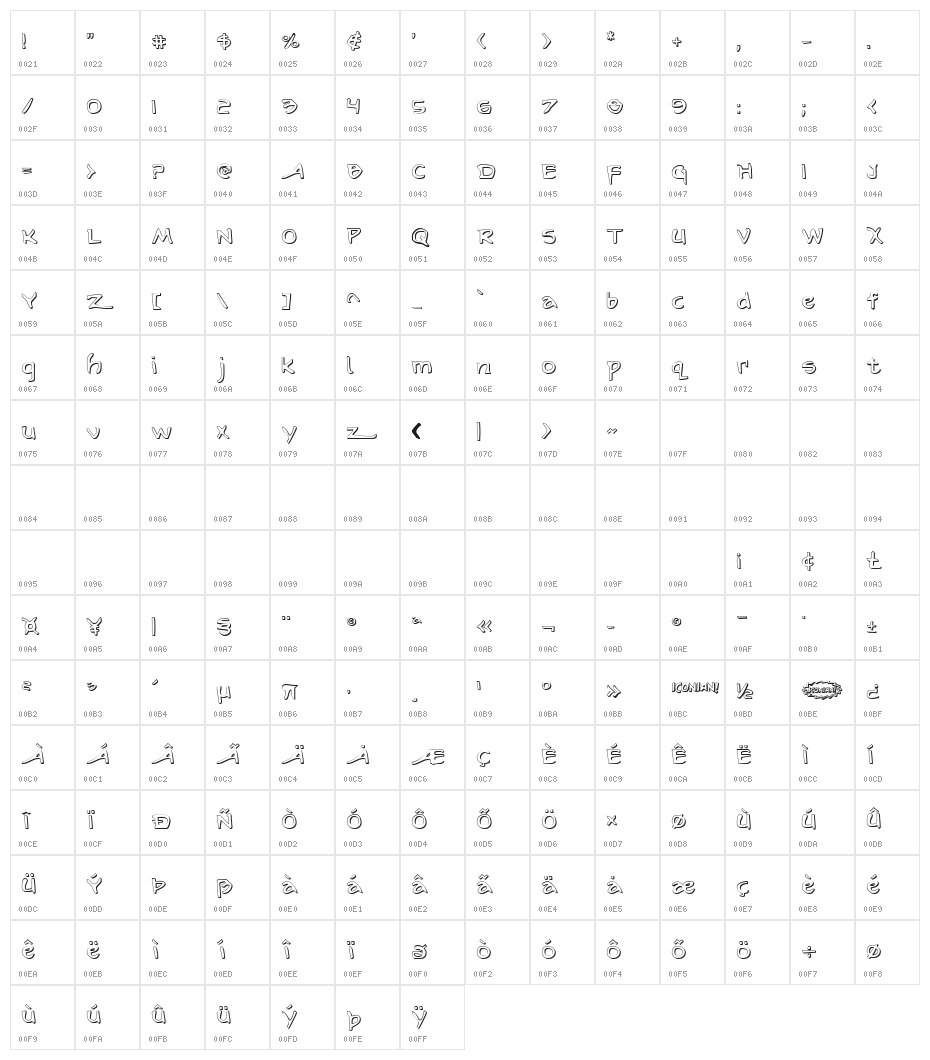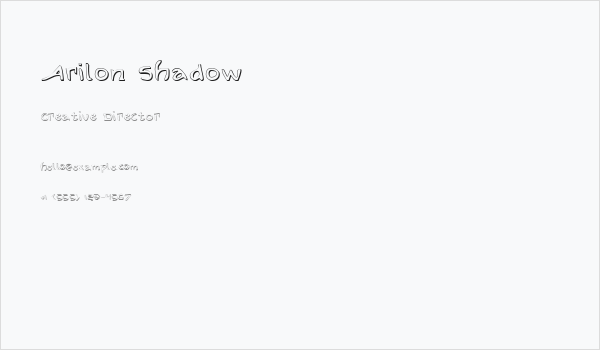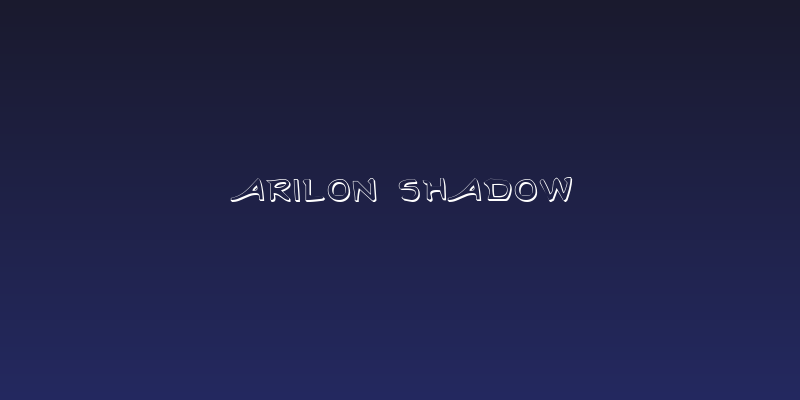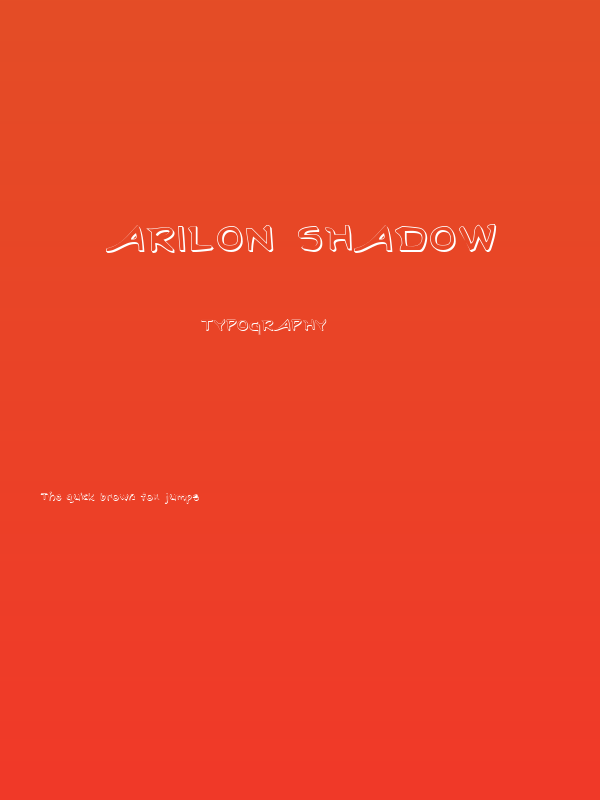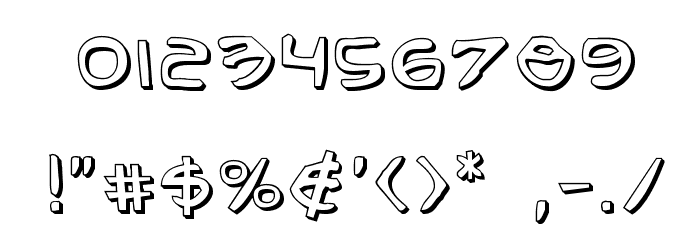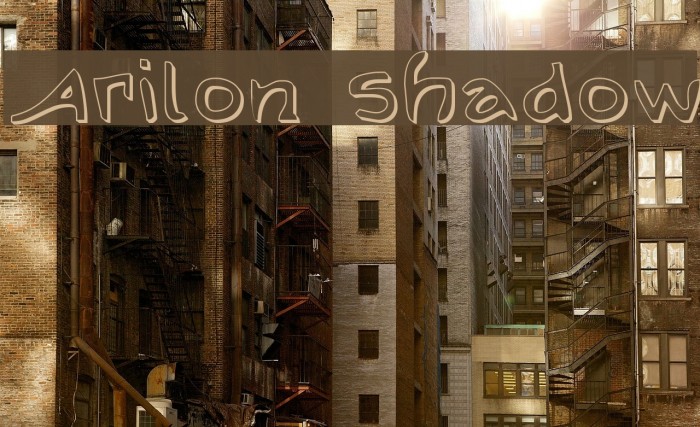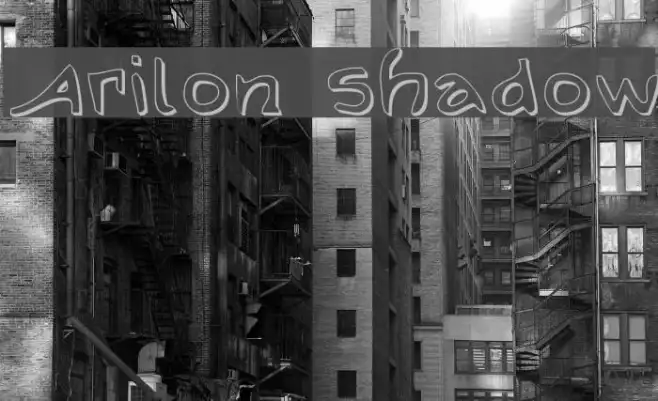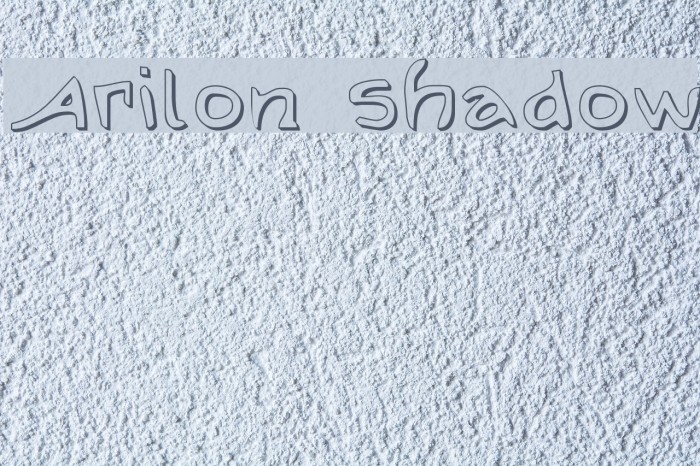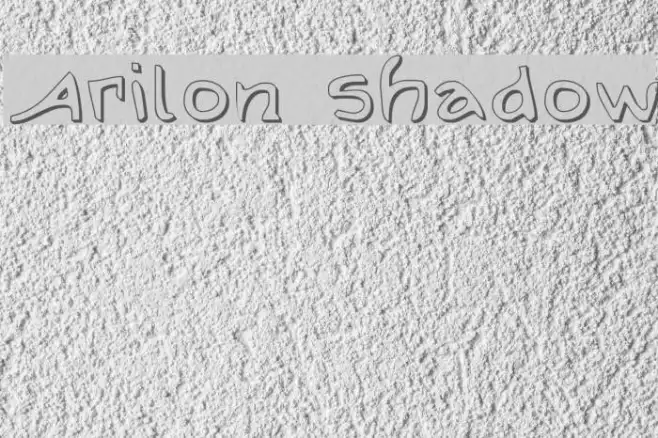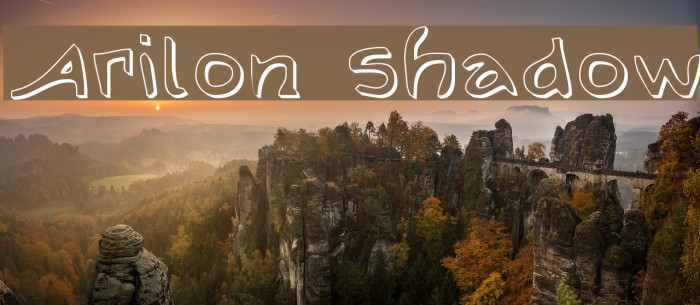
Arilon Shadow Font
Arilon Shadow Description
This font features a playful and dynamic style with a shadow effect that gives it a three-dimensional appearance. The characters are outlined with a bold, black shadow that enhances their visibility and adds depth. The uppercase and lowercase letters maintain a consistent design, with rounded edges and a slightly irregular form that contributes to its whimsical charm. The numerals and special characters follow the same design principles, ensuring uniformity across all glyphs. This font is ideal for projects that require a fun and engaging aesthetic, such as children's books, playful branding, or creative posters.
| Proposed Projects | Ideal for children's books, playful branding, creative posters, and any project needing a fun aesthetic. |